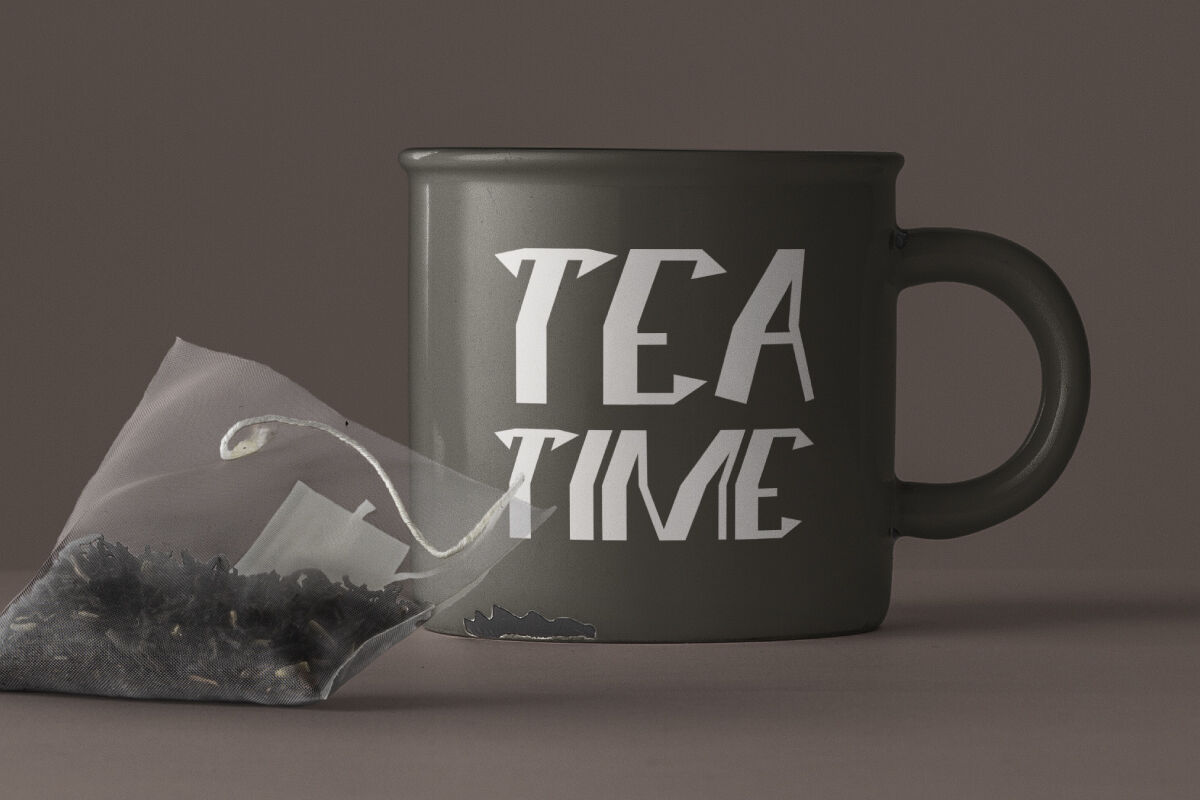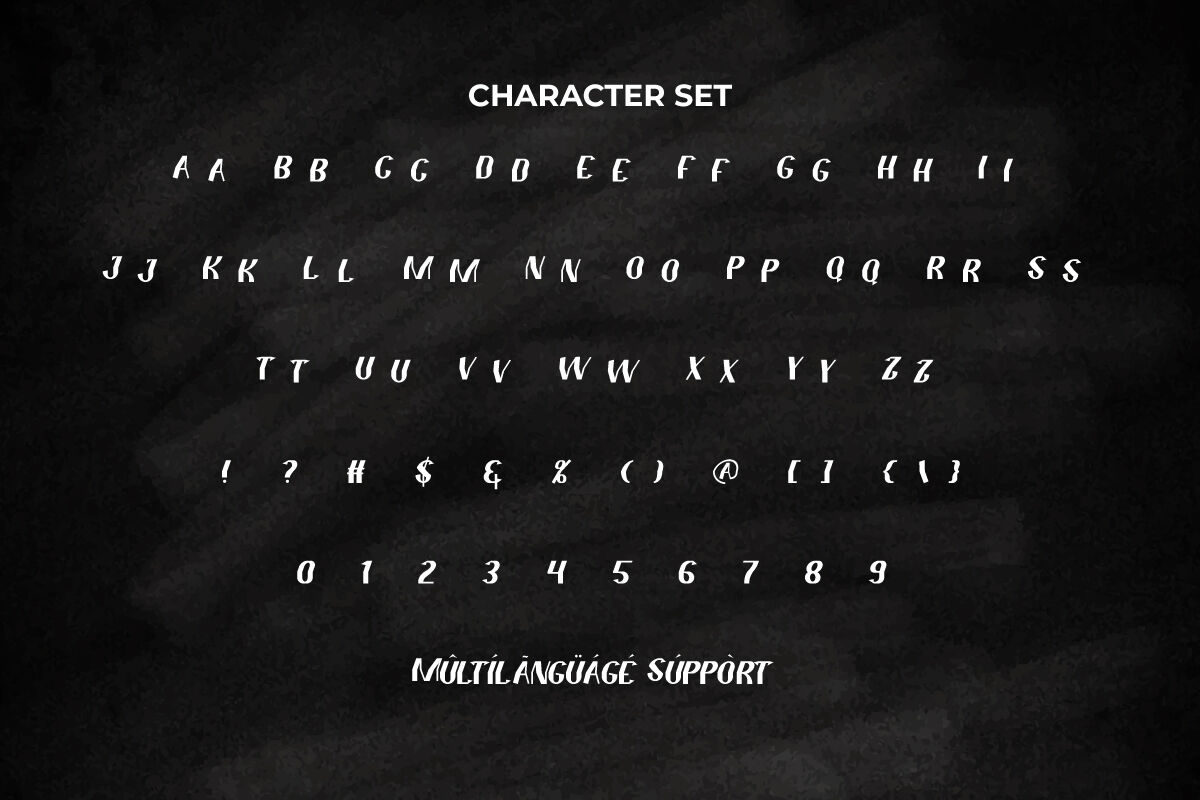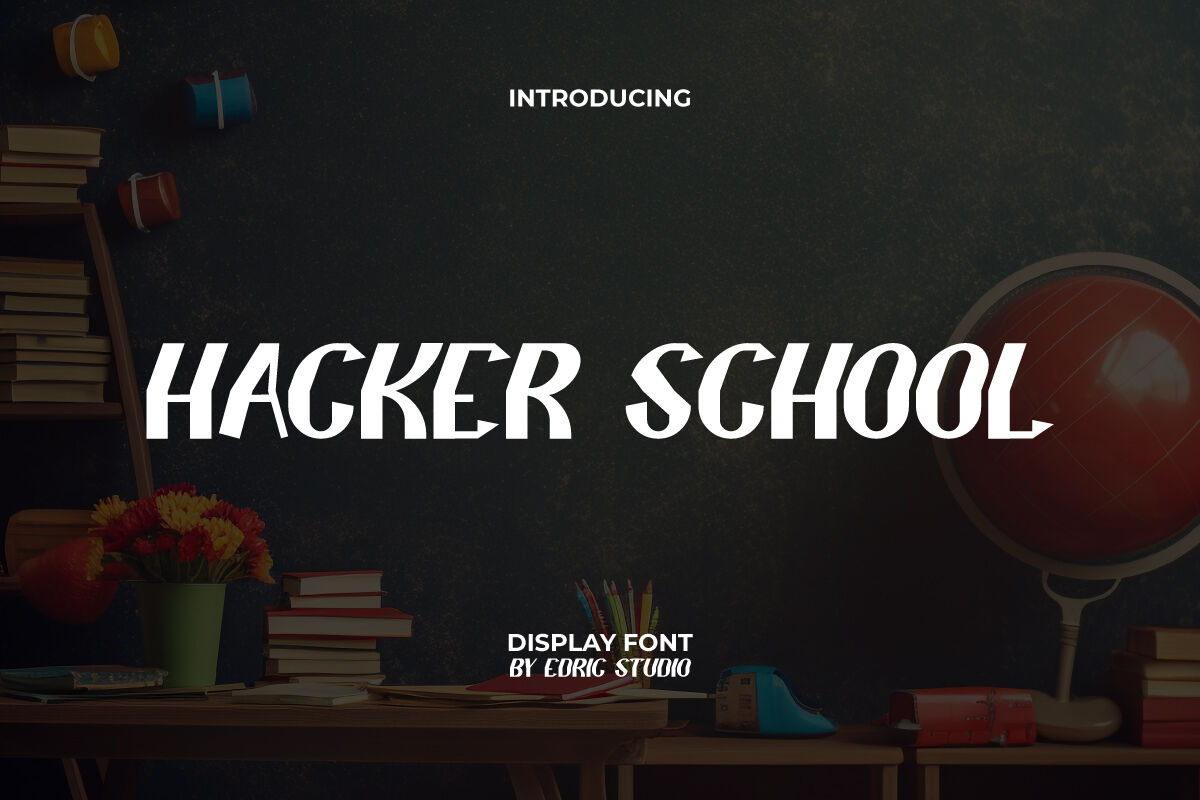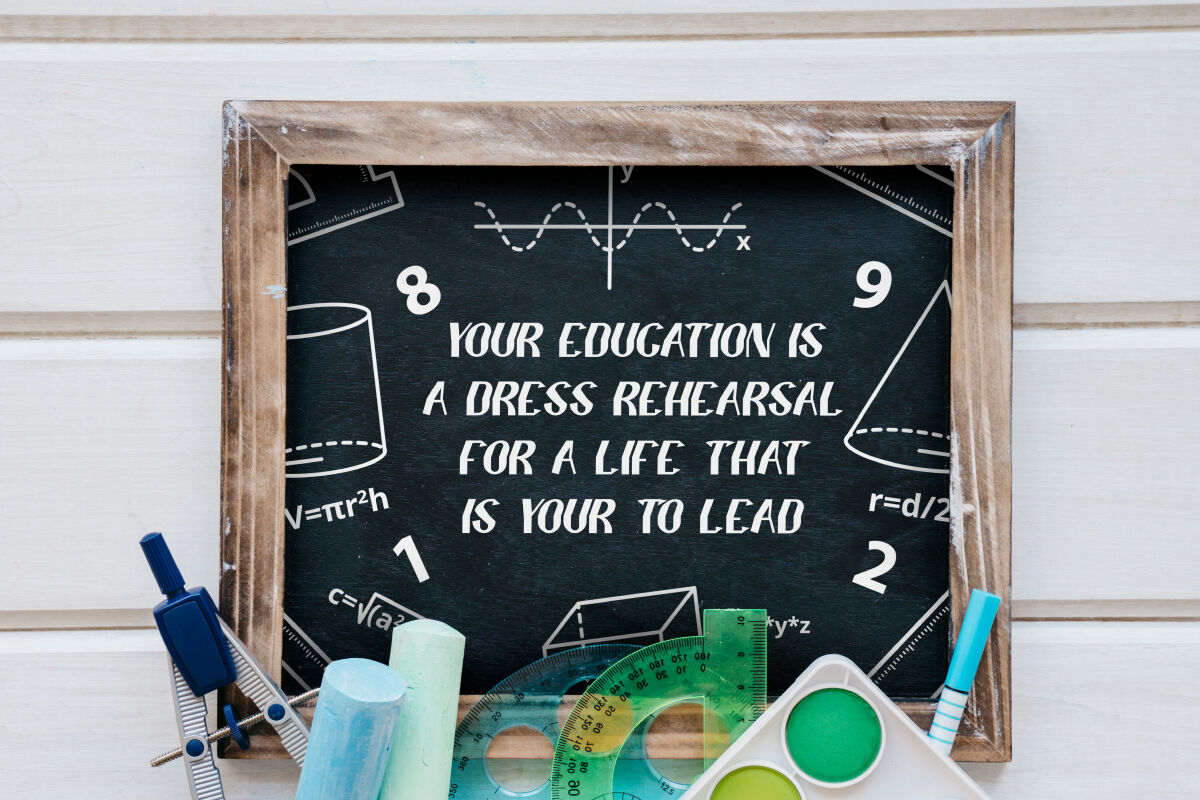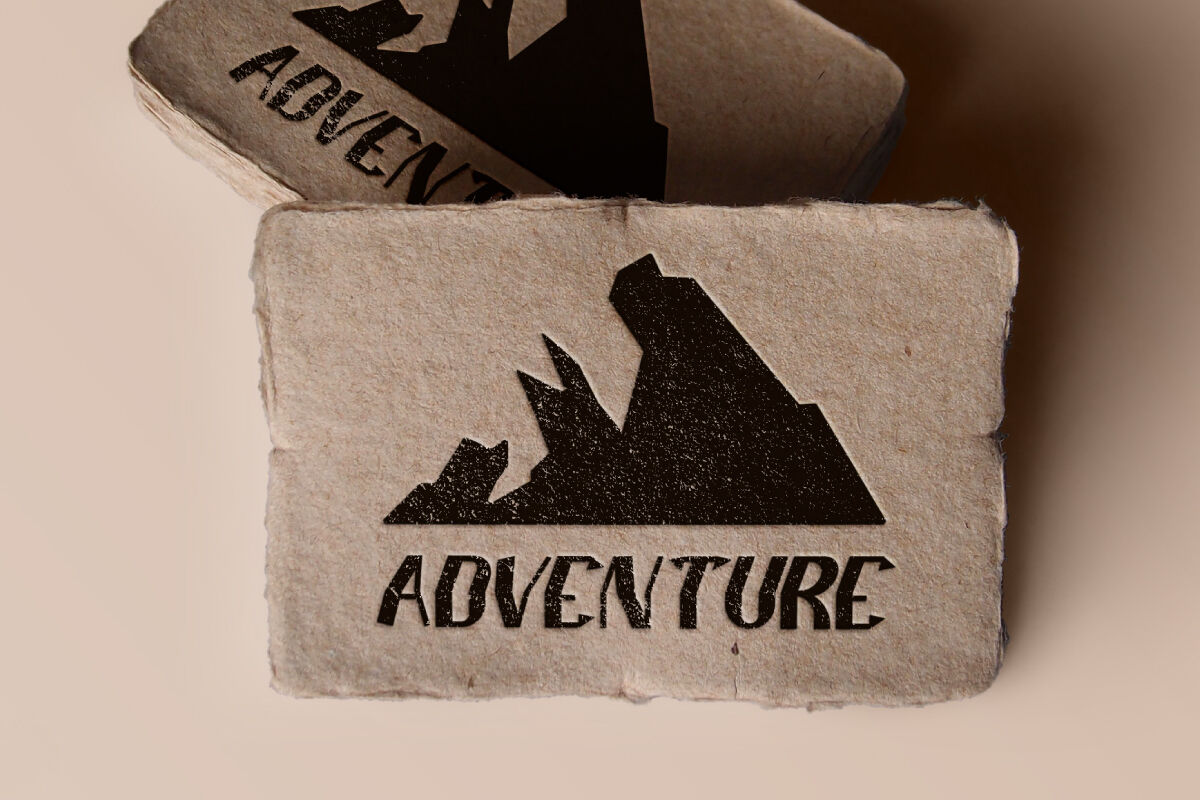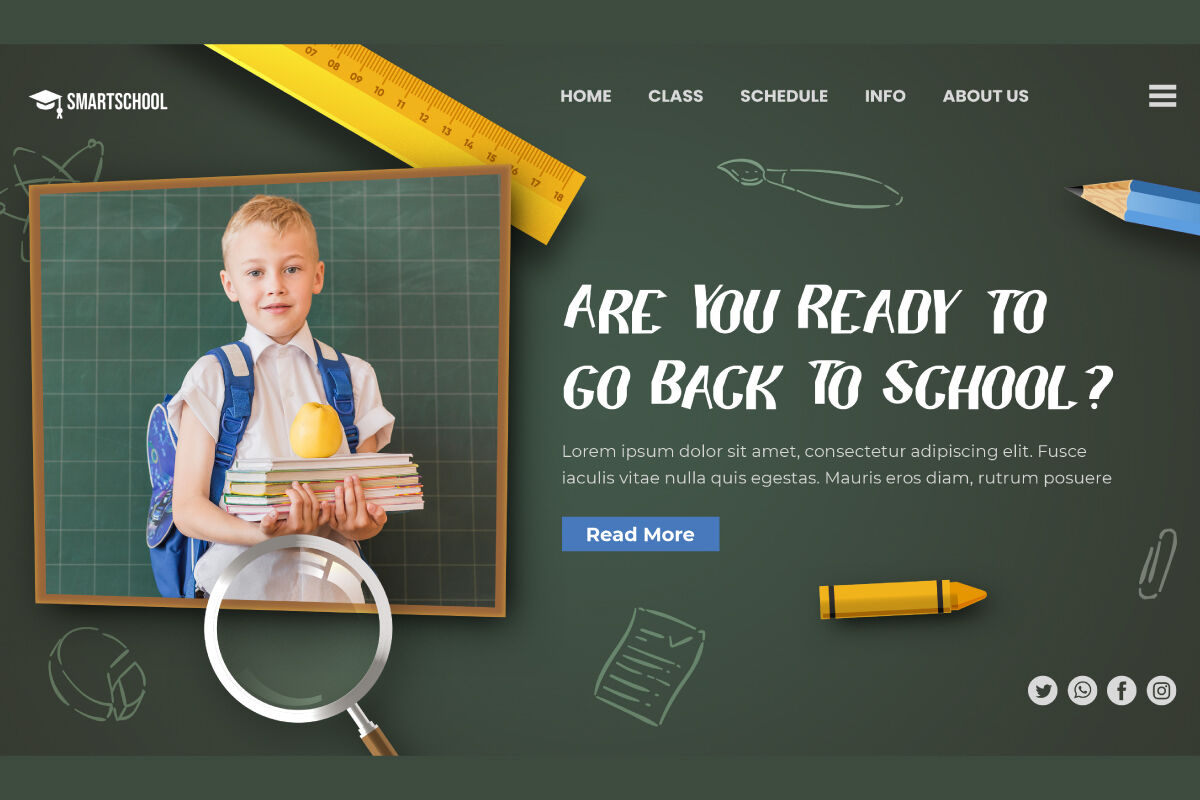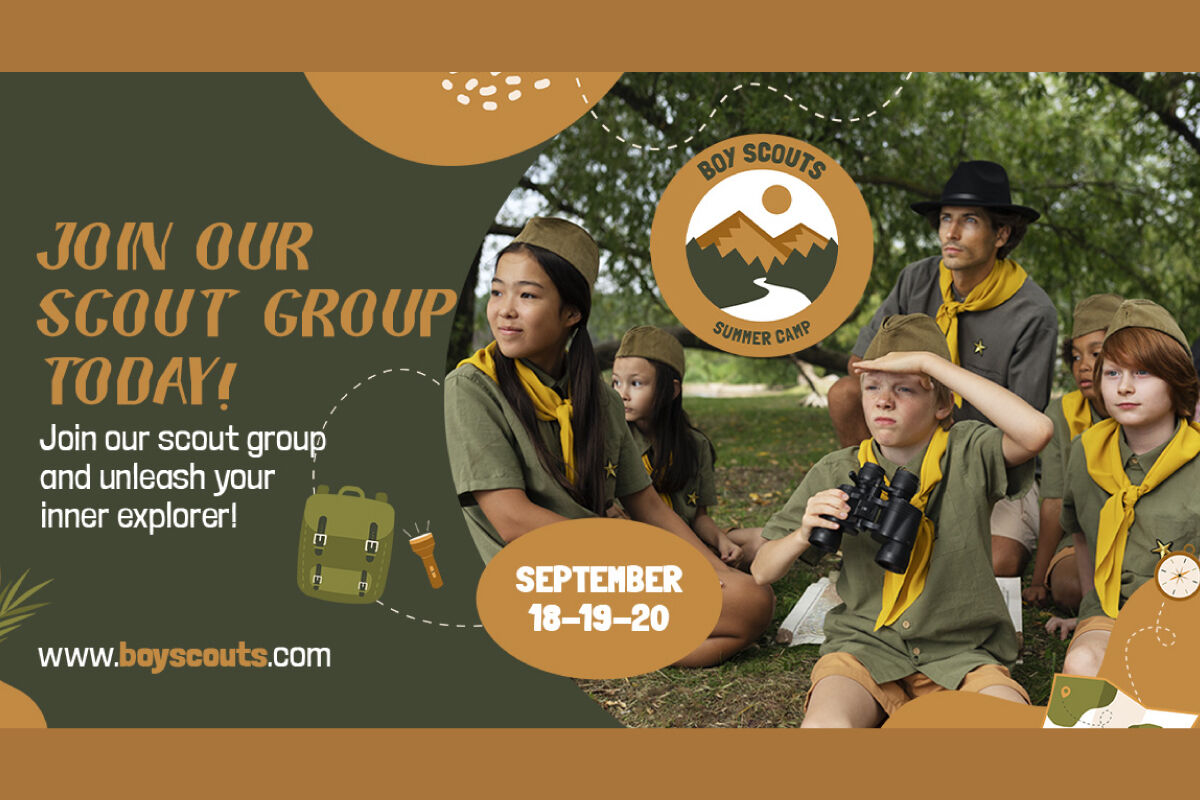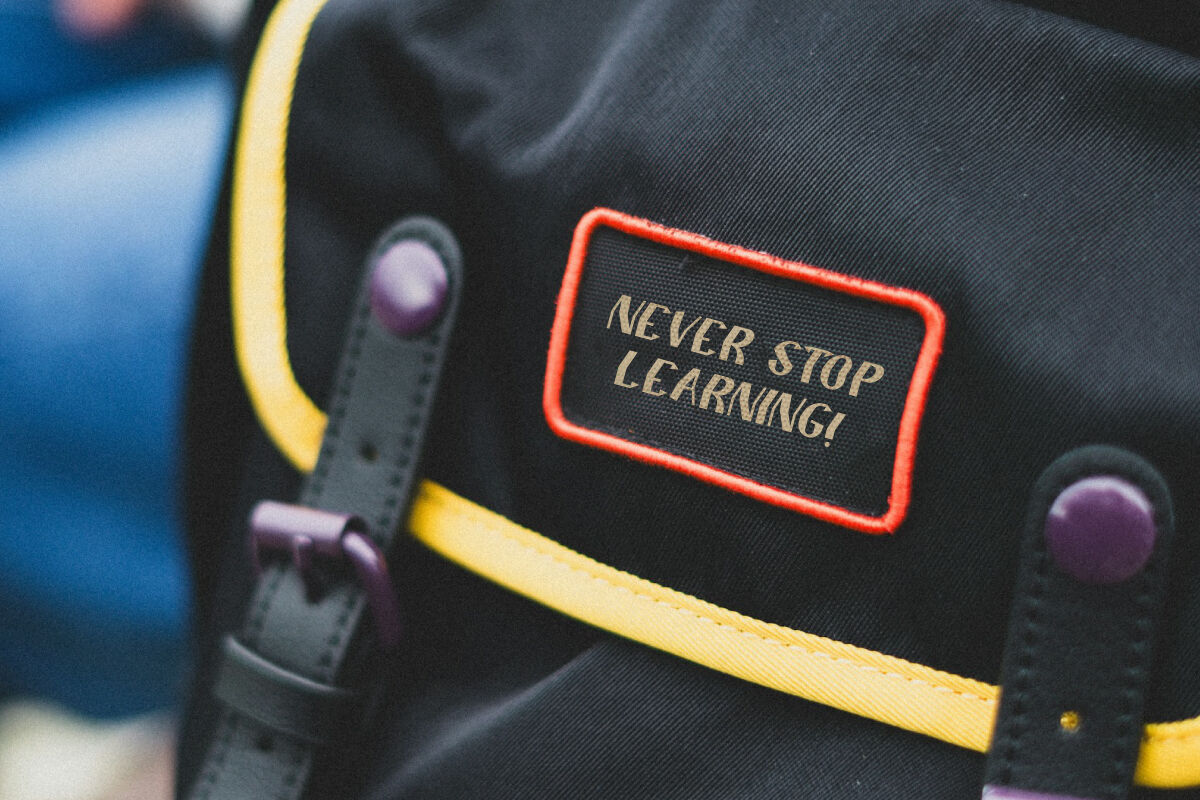
Hacker School Font is a unique techno and web security inspired display font with a distinctive look of contemporary letter imagery. This typeface combines organic details with strong geometric shapes. It will be chic and attractive which will bring personality and vibrancy to your design, making it visually appealing and interesting. This font is perfect for branding, business cards, headers, labels, logos, packaging, posters, social media, stickers, website or simply a text design on a background.
Hacker School Font includes a complete set of ALL CAPS for Uppercase and Lowercase Letters, Numbers, Punctuation and Symbols. A unique experimental font with artistic character shapes and bent corners. Specially designed to give a new feel and use this font to bring a creative look! It is perfect for use in camps and outdoor activities, printing, publishing, resto & lounge, sportswear and many more.
Step into the future of design with Hacker School Display Font, a high-impact display font inspired by hacker culture, digital code, and cyberpunk aesthetics. Designed for creators who push boundaries, this font brings sharp edges, futuristic style, and tech-driven energy to every project.
Perfect for headlines, posters, branding, app interfaces, and tech-related visuals, Hacker School Display Font instantly commands attention. Whether you’re designing for a coding bootcamp, an indie game, a tech startup, or a YouTube channel, this display font is built to disrupt and impress.
With bold geometric letterforms and clean digital lines, Hacker School is more than just a font — it’s a display weapon for creatives who think differently. It captures the underground spirit of the hacker world while staying fully professional and versatile.
Hacker School Font also supports multilingual characters which are ready to use either on Windows or Mac machines with a simple installation. Combine different characters for a bespoke, handcrafted feel. It’s tested to work well in the Adobe Apps (Illustrator, Adobe InDesign, Adobe Photoshop) even work on Microsoft Word. All of these characters are available through the glyph panel, moreover each letter has its own unicode (PUA) so you can access all the characters easily.